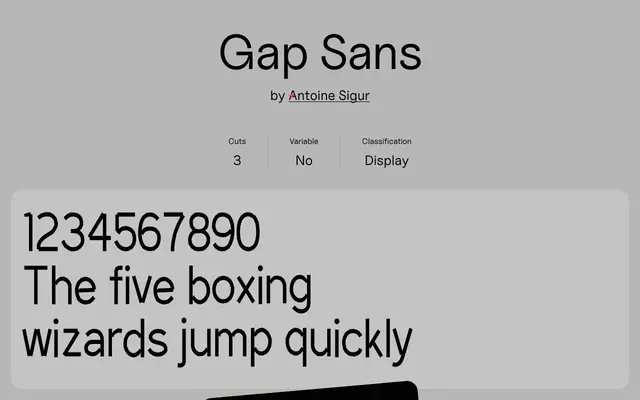
Gap Sans
A free display sans by Antoine Sigur, released under SIL Open Font License and available in three cuts.
Released under the SIL Open Font License 1.1, Gap Sans is free for both commercial and personal use. It comes in three cuts, suggesting stylistic or weight variants suited to headline and display applications. No variable font version is available.
Classified as Display by the foundry; the name and three-cut structure suggest a decorative or experimental sans intended for headline use rather than text.